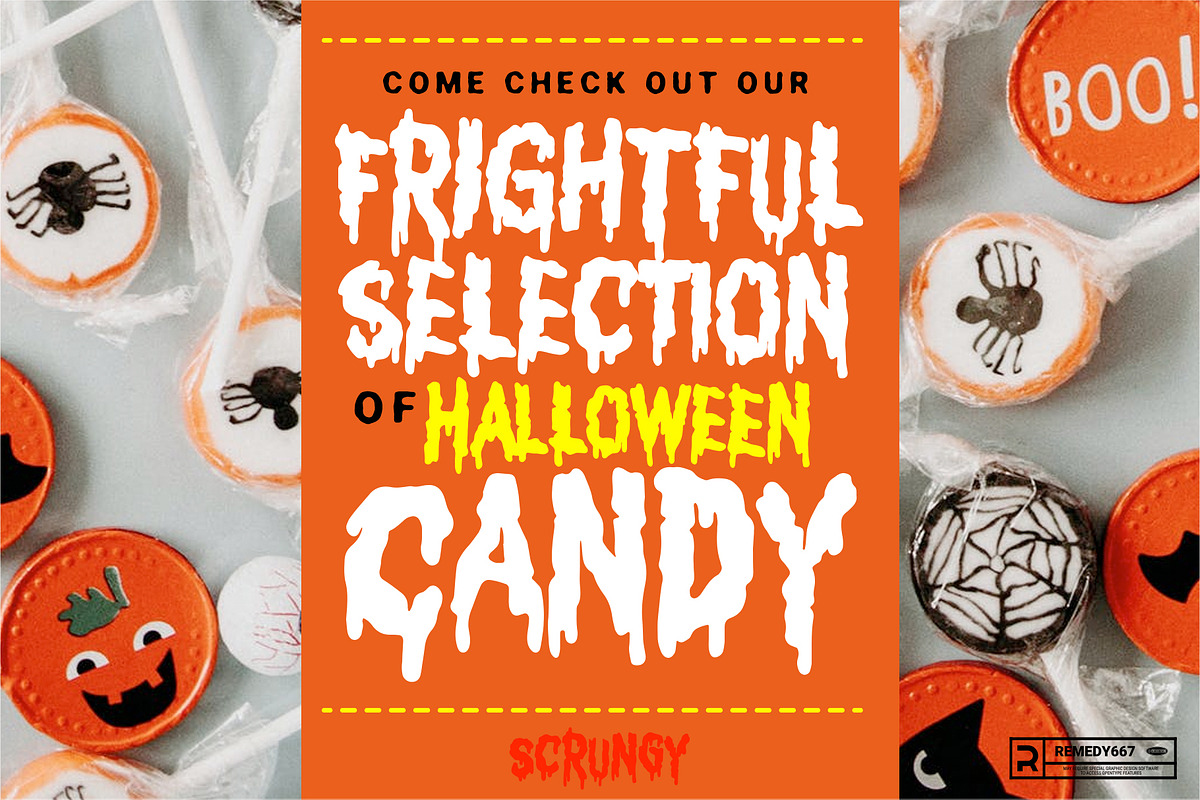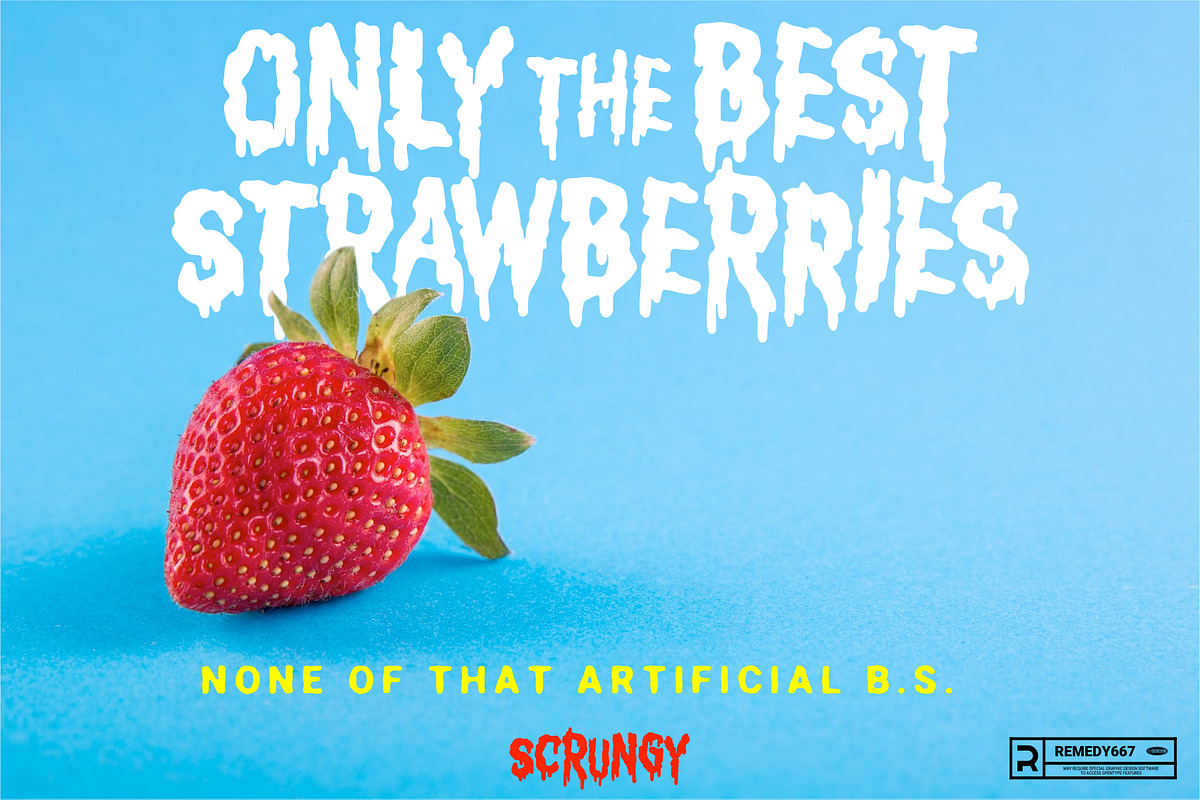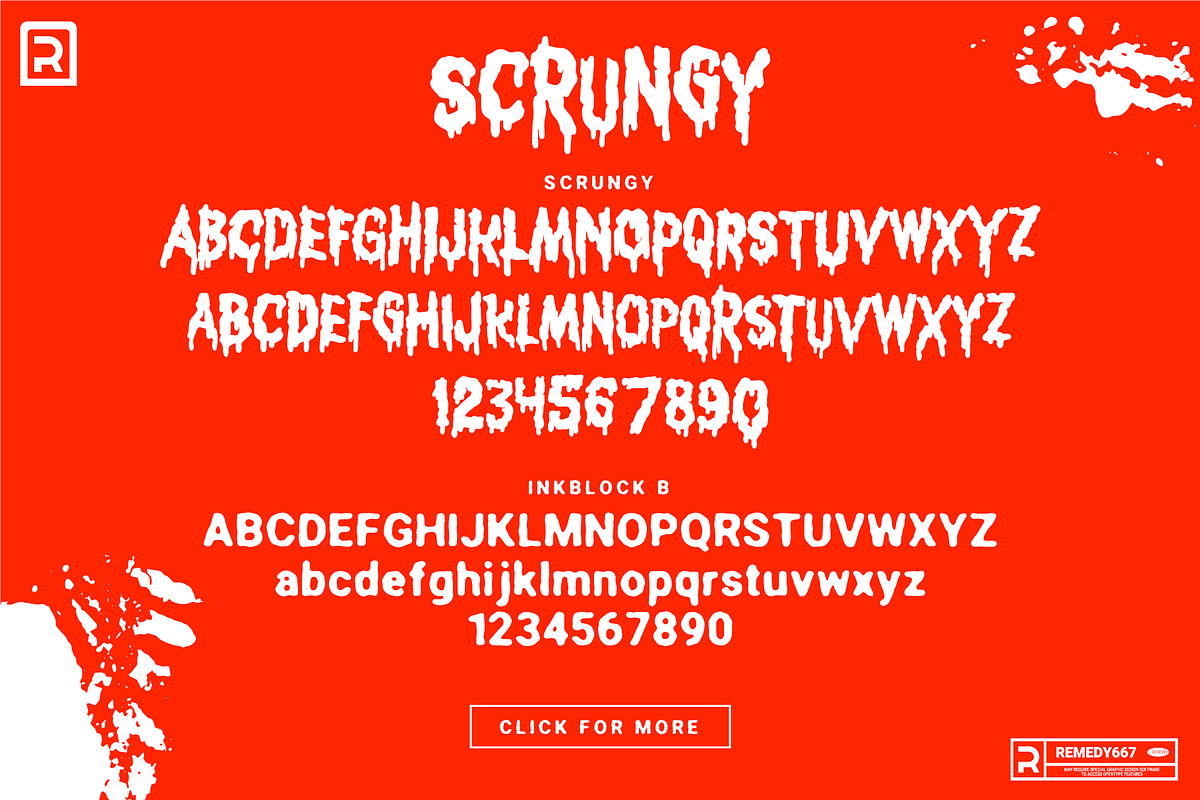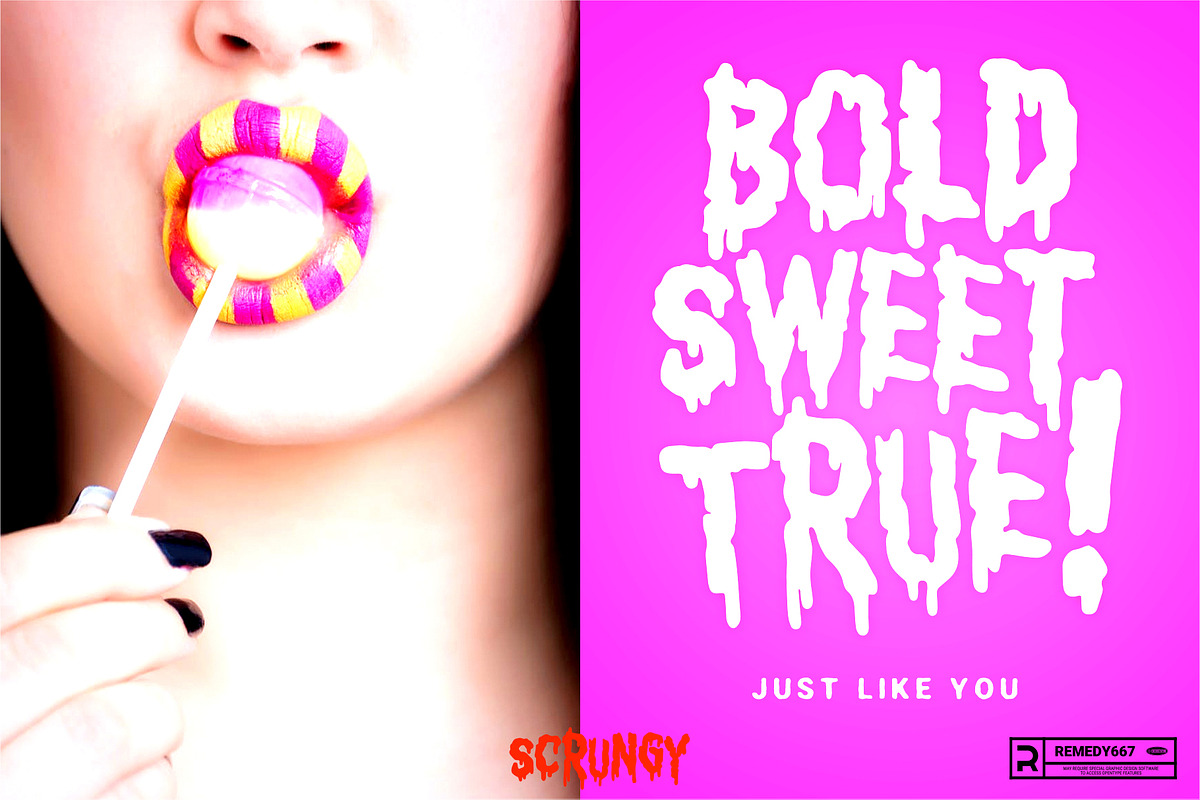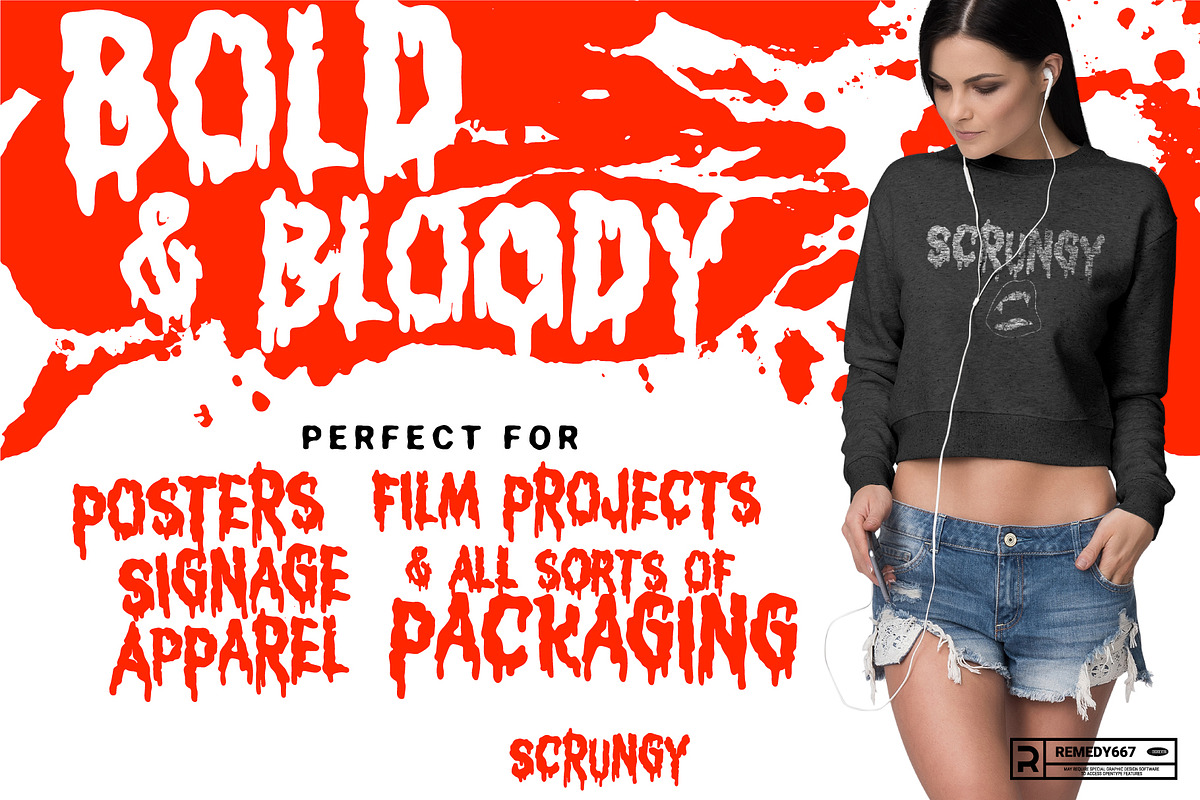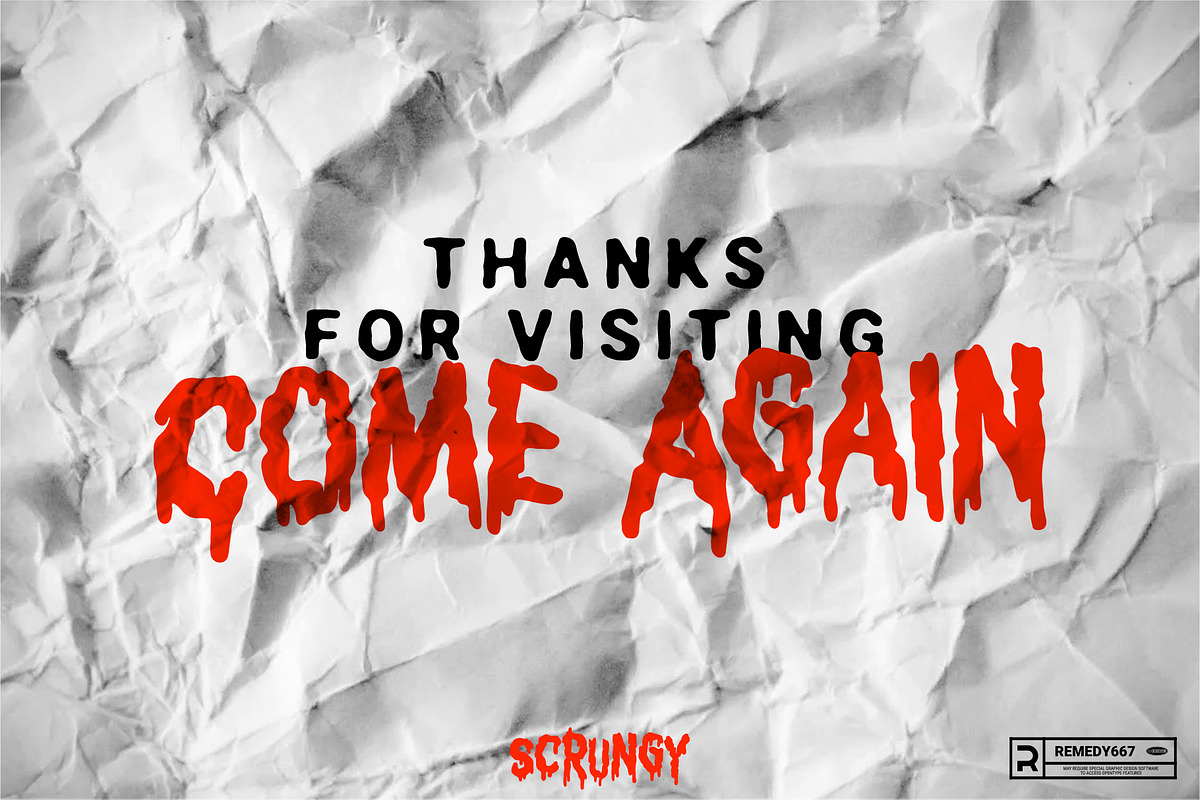
Scrungy - Font Duo
Scrungy is a handmade drippy font inspired by 80’s horror and slasher films. It has a wide variety of characters, including plenty of ligatures and alternates to help mix up your type treatment… and as an added bonus it includes the typeface, InkBlock B, a great (cleaner) complimenting typeface.
Scrungy looks great as a title for things like: zines, shirts & apparel, album covers, horror movies, toys and book covers.